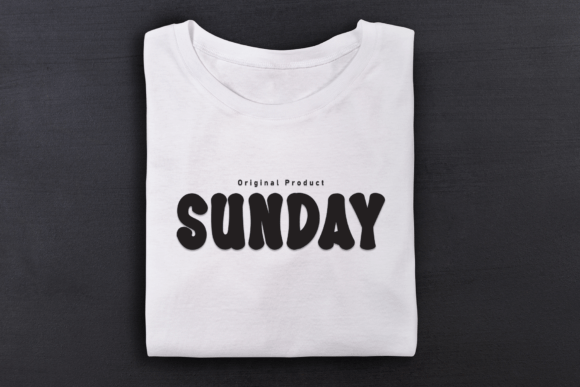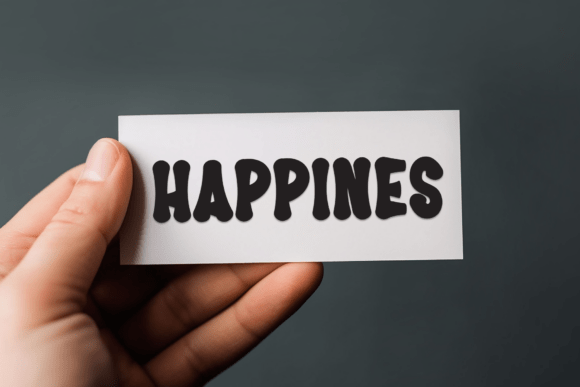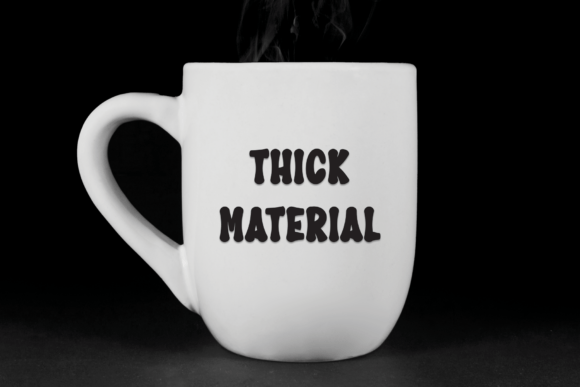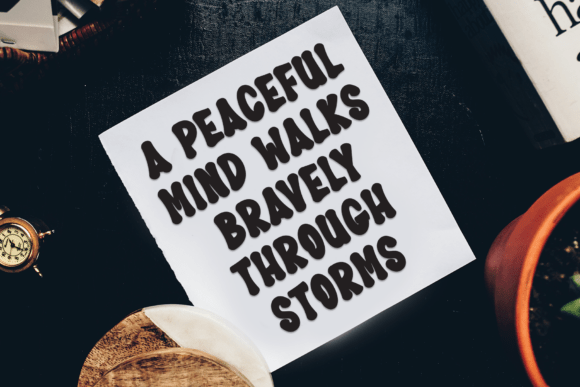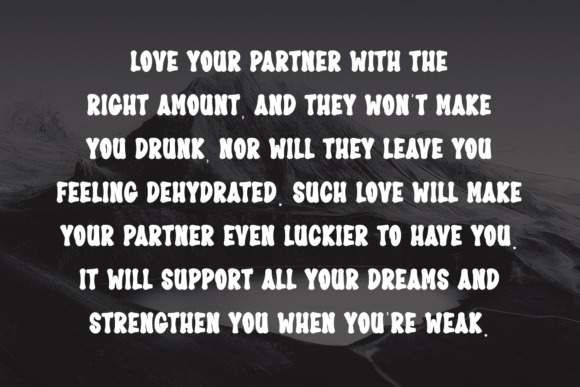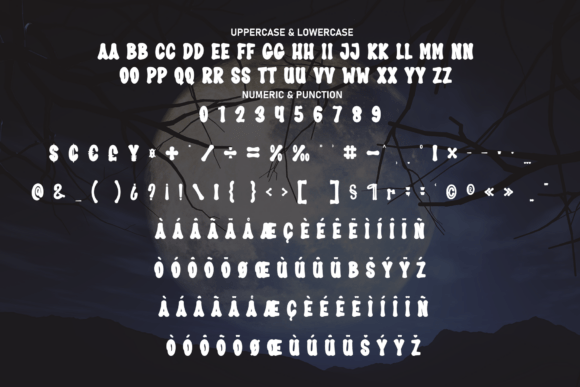
Introduction to Moonday Font
Introducing an enthralling handwritten display font designed to encapsulate the quintessence of charm and liveliness.
This stunning typographic wonder throbs with subtle festive undertones, bringing an emotive touch to wedding invitations, jazzing up your greeting cards, and radiating an irresistible burst of energy into all your design projects With a friendly vibrancy and rhythmic flow, this font ensures to sprinkle a flurry of warmth and zest within every creative journey.